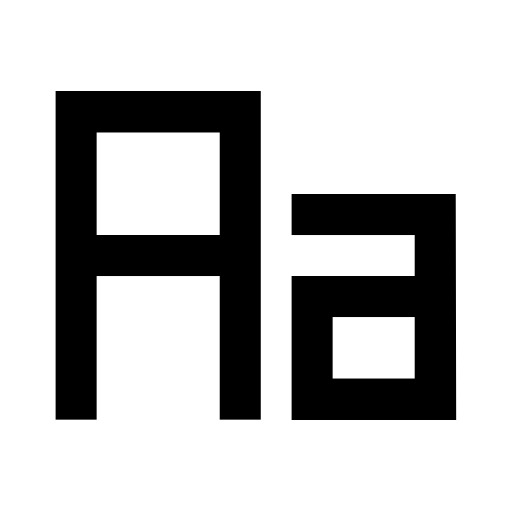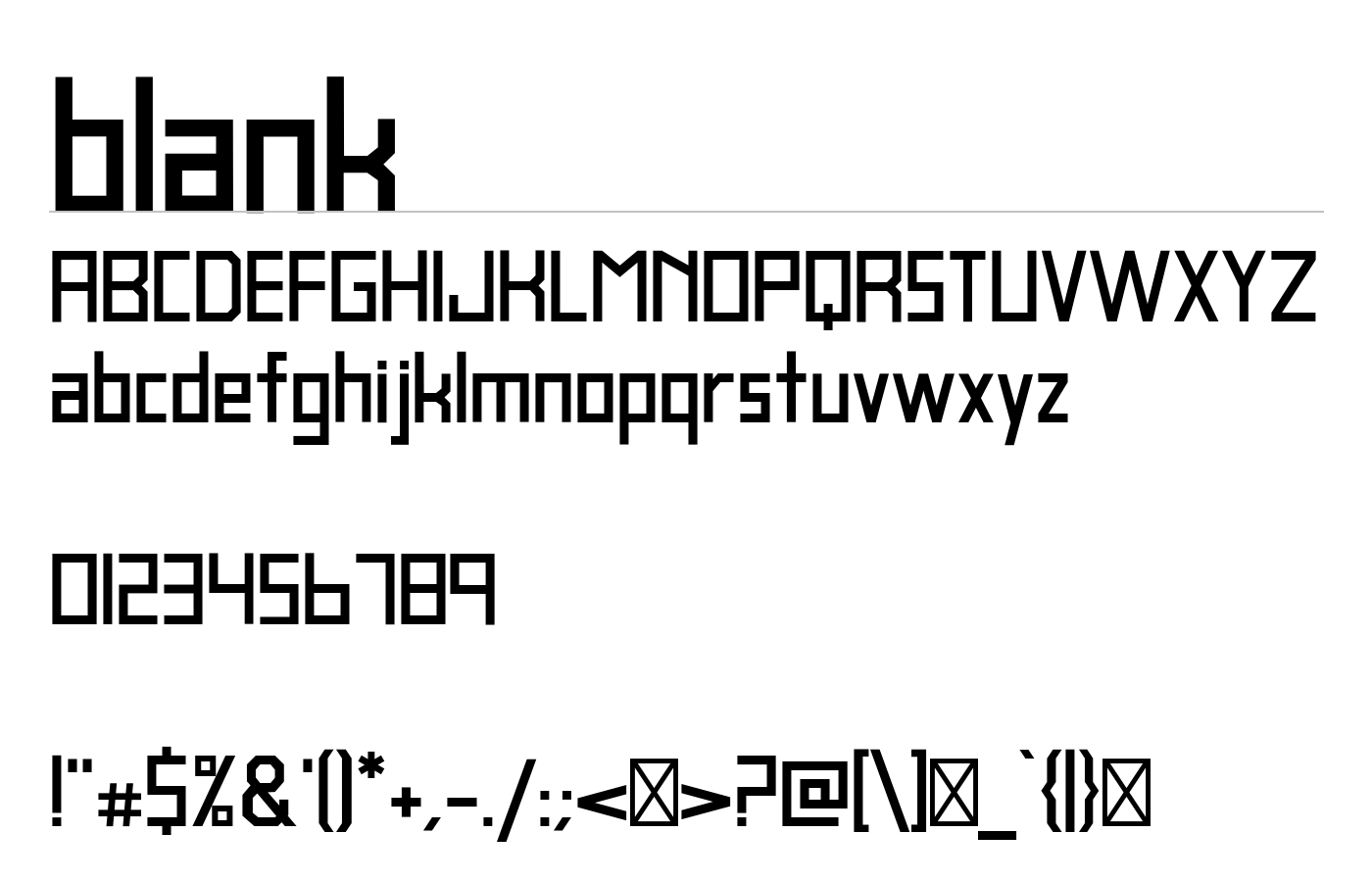
Blank Font is a modern, geometric sans serif typeface characterized by its angular, square-like letterforms and consistent stroke weight. It has a condensed width and medium x-height, giving it a technical and structured appearance that works well for digital interfaces, futuristic branding, and tech-focused designs. Its clean, minimalist style makes it ideal for headlines and logos where a contemporary and edgy vibe is desired.
blank Font
About blank Font
| Font family | blank Font |
| Designer | mauro espindola |